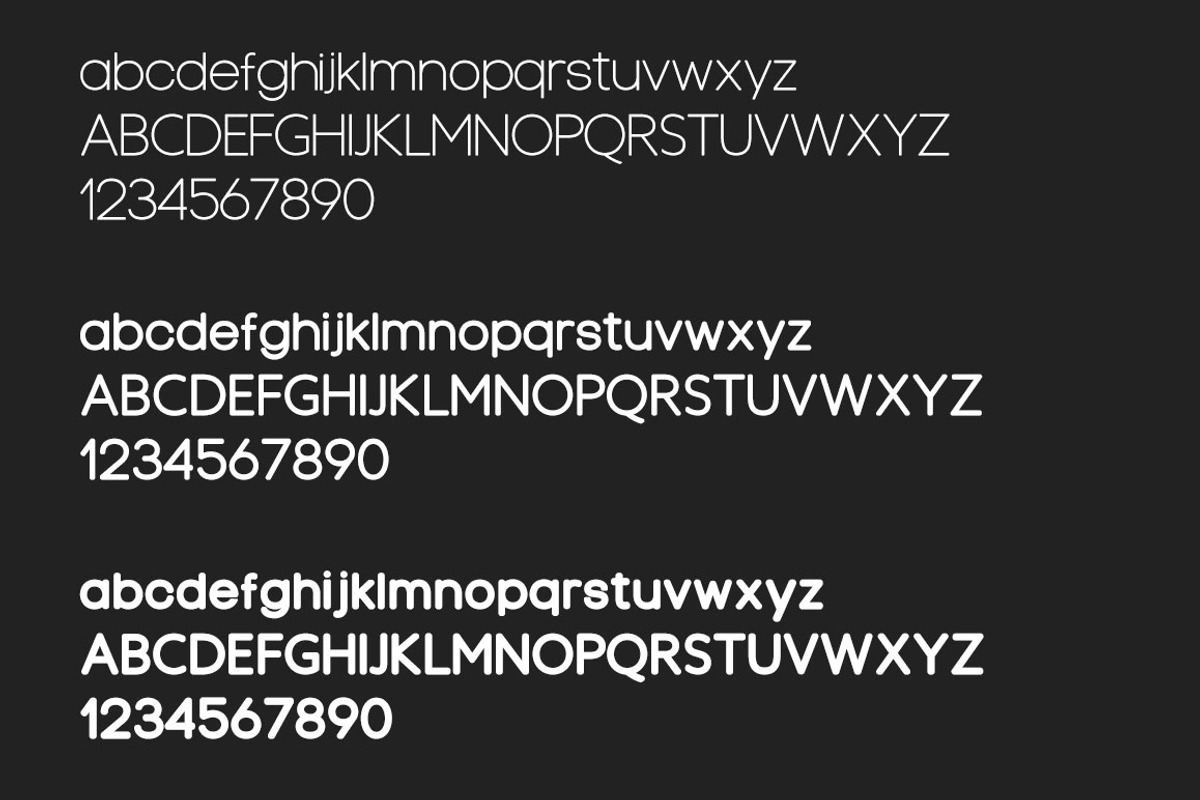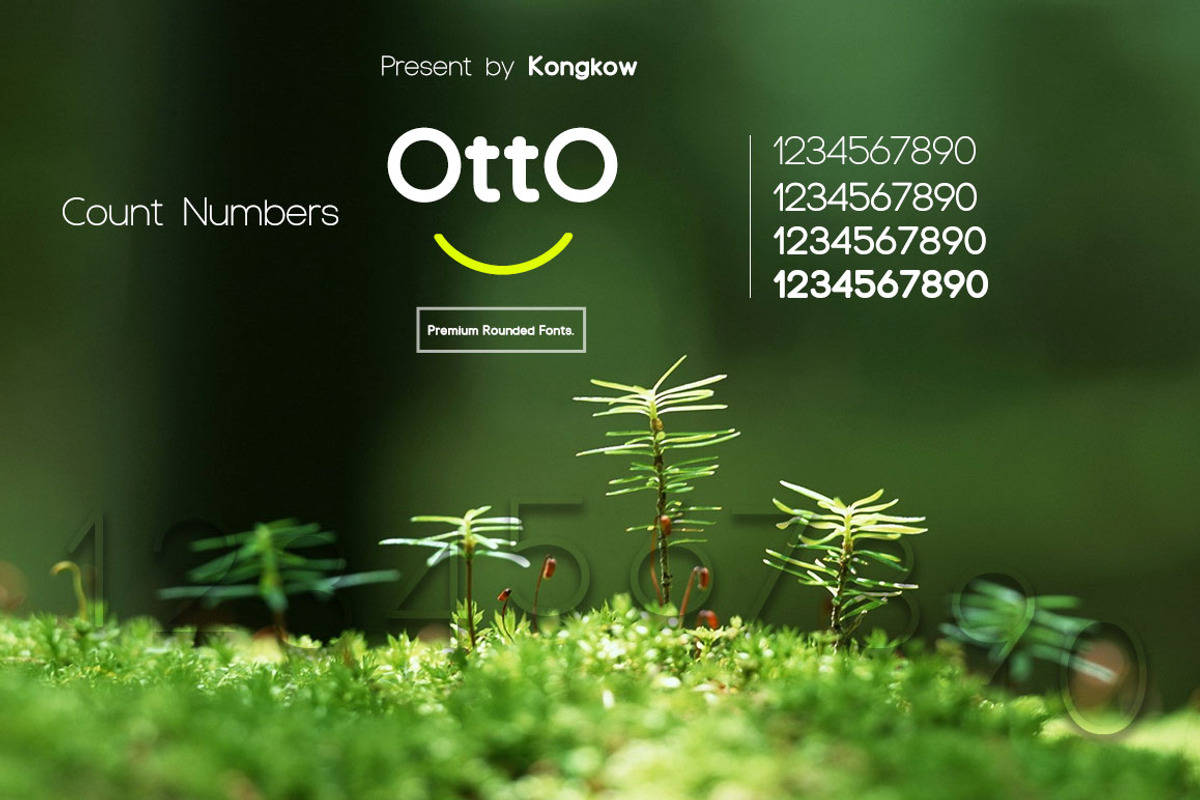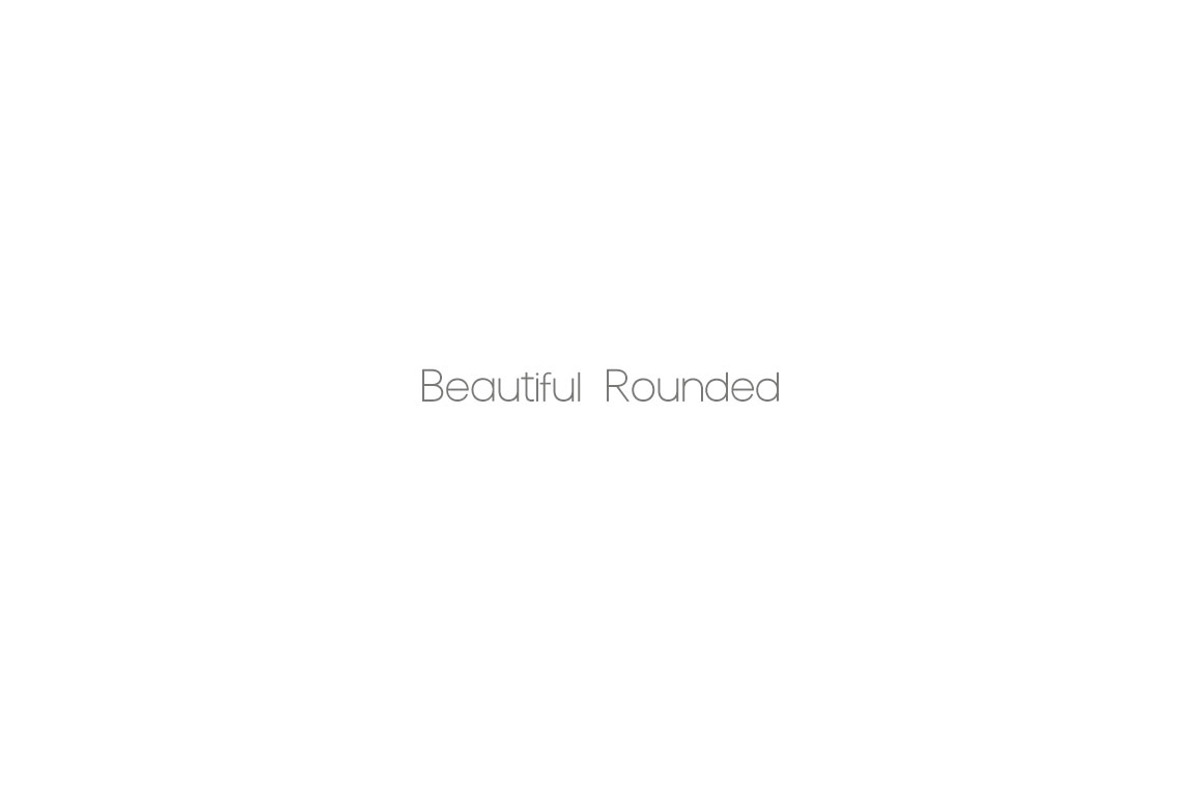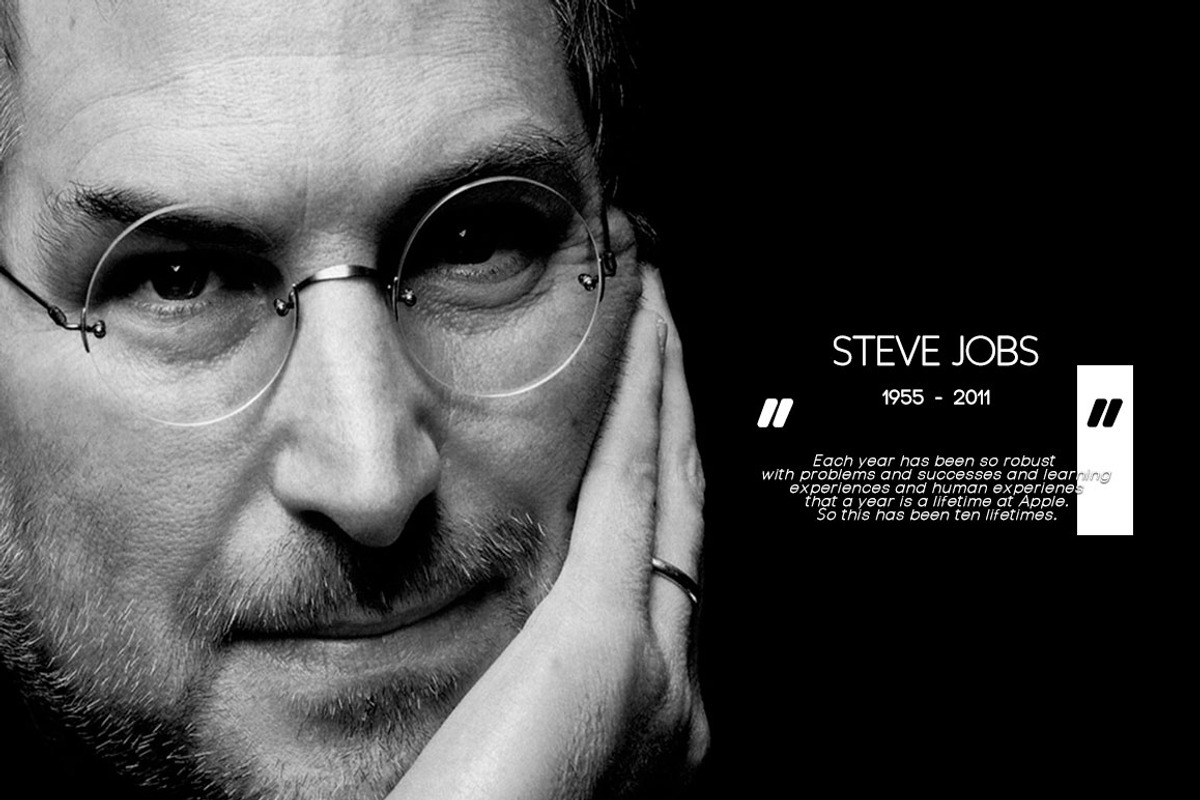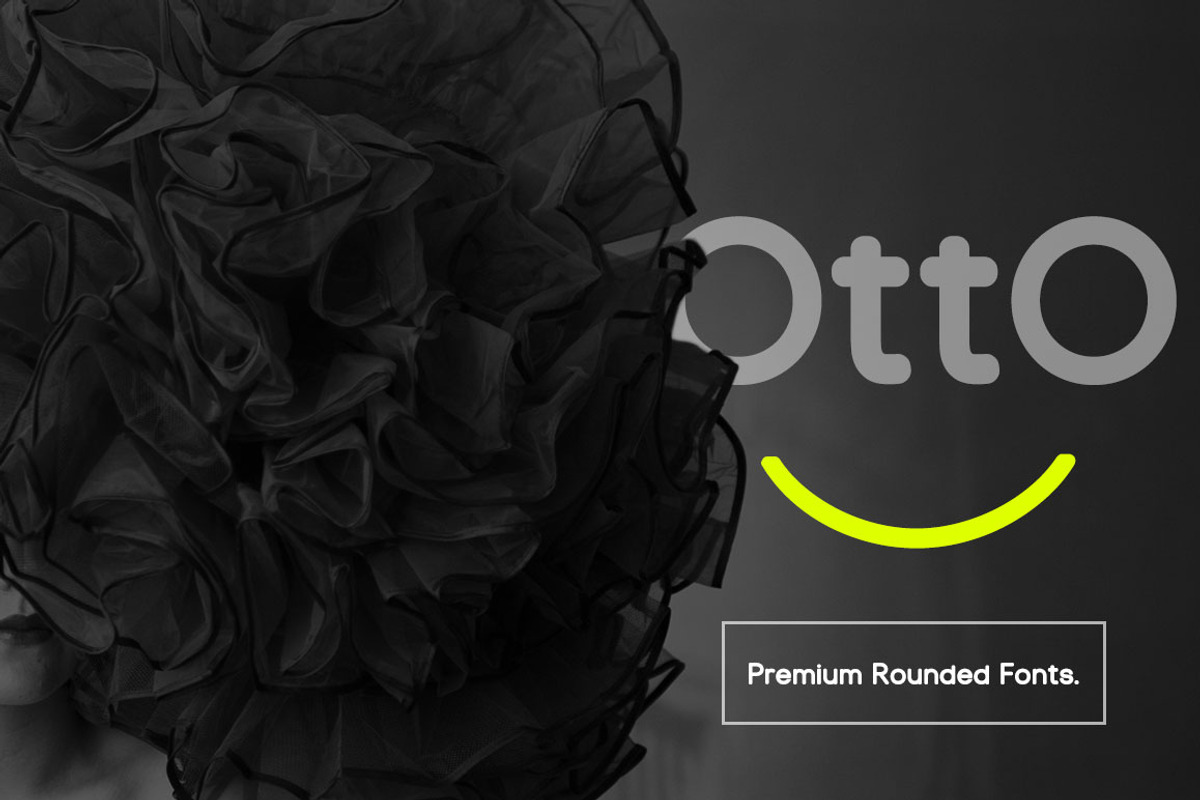
Otto Beautiful Rounded Fonts
Otto Beautiful Rounded Fonts Is a sans font family, very dynamic and minimalist, to the logo and content. there are seven variants of family fonts, bold, regular, regular-italic, light, light-italic, thin, thin-italic.
- 7 Family Sans
- Roundes style